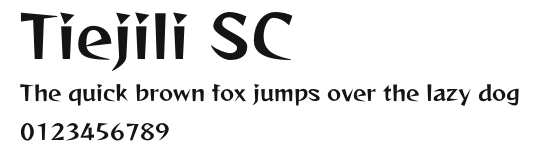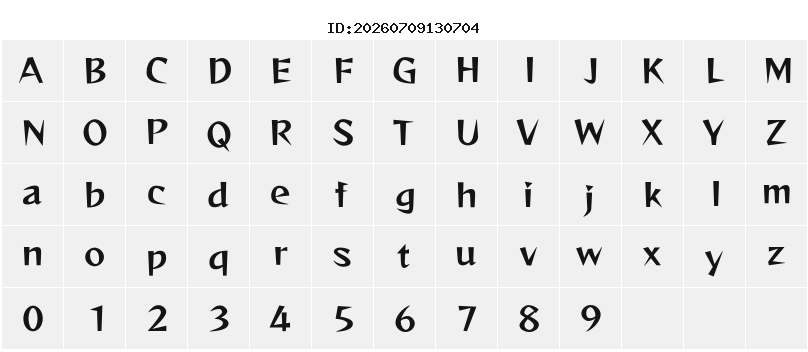
• Designer: 奈白不弍
• Manufacturer: 弍手消息社
About Tiejili SC.otf
Tiejili SC.otf is a modern, elegant sans-serif font designed for ultimate readability and visual harmony. Perfect for branding, headlines, web design, and print materials.